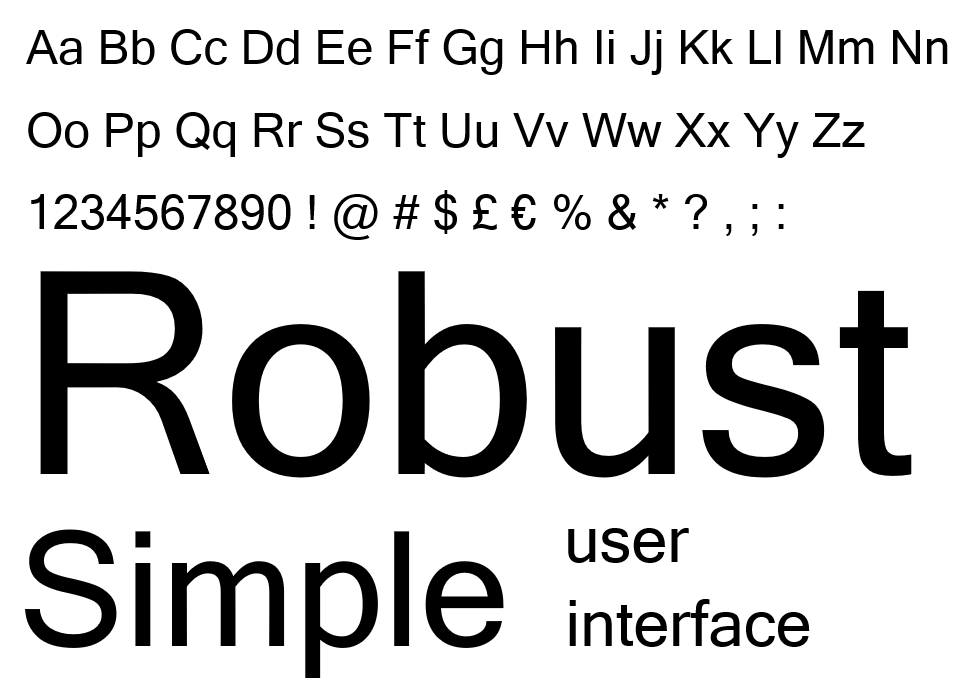
Microsoft Sans Serif font is a very legible User Interface (UI) font. It was designed to be metrically compatible with the MS Sans bitmap font that shipped in early versions of Microsoft Windows.